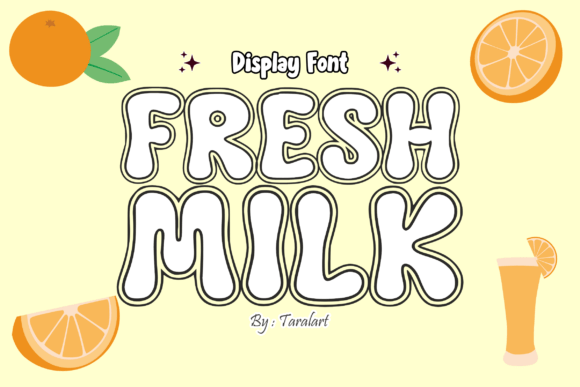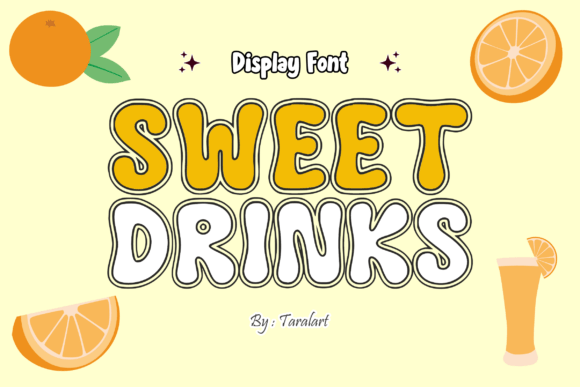
Discover the Playful Charm of Freshjuice Regular Font
Have you ever been in the middle of a design project, and suddenly, you’re stuck on finding the perfect font? I recall a recent experience where I was working on a children’s book, and my client requested a font that was both playful and easy to read. After scouring through numerous font libraries, I stumbled upon “Fresh Juice,” a contemporary font that has since become a staple in my design toolkit.
A Personal Review of Freshjuice Regular Font
What I Love About Freshjuice ✨
- ✅ Its cartoon-like aesthetics and adorable characters make it perfect for designs that require a touch of whimsy.
- ✅ The font’s versatility allows it to be used for a wide range of projects, from t-shirts and mugs to animations and children’s greeting cards.
- ✅ It’s incredibly easy to read, even at smaller font sizes, making it ideal for body text or captions.
- ✅ The font’s unique character set includes a variety of ligatures and stylistic alternates, allowing for endless creative possibilities.
- 🤔 Some characters, like the uppercase letters, can be a bit quirky and may not suit every design style.
- ⚠️ The font may not be the best choice for formal or professional projects, as its playful nature may not be suitable for every audience.
The Backstory of Freshjuice Regular Font
Freshjuice Regular Font was designed with the intention of creating a playful and versatile font that could be used for a wide range of creative projects. The designer aimed to craft a font that was both fun and functional, with a unique character set that would inspire creativity and imagination.
| Font Name | Freshjuice Regular Font |
| Author | TaralArt |
| What type of projects is Freshjuice Regular Font best suited for? | Freshjuice Regular Font is ideal for designs that require a touch of whimsy, such as children’s books, animations, t-shirts, mugs, and tote bags. |
| Is Freshjuice Regular Font easy to read? | Yes, Freshjuice Regular Font is incredibly easy to read, even at smaller font sizes, making it suitable for body text or captions. |
| Does Freshjuice Regular Font support OpenType features? | Yes, Freshjuice Regular Font supports OpenType features like ligatures and stylistic alternates, allowing for endless creative possibilities. |